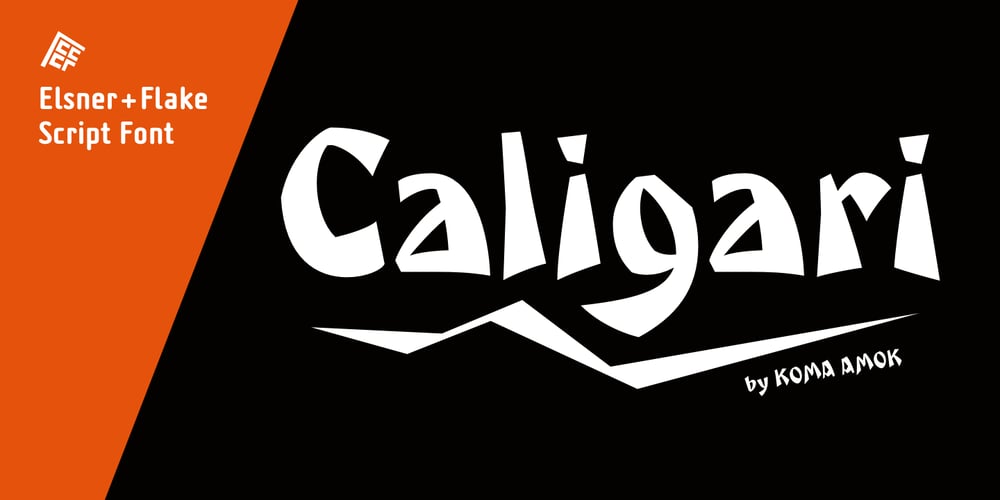
Caligari Pro Font Family was designed by Gerd Sebastian Jakob, Joerg Ewald Meißner and published by Elsner+Flake. Caligari Pro contains 1 styles and family package options. The silent film »The Cabinet of Dr. Caligari« (1920) is undoubtedly one of the breathtaking milestones within the German Expressionist Movement, a time of extraordinarily creative works of art as a reaction to a world in rapid change. The original intertitles of Caligari were worked out by the set designers (and painters) Walter Reimann, Walter Röhrig, and Hermann Warm, using a unique expressionistic language of form for dramatic and iconic lettering. When in 2010 KOMA AMOK’s Joerg Ewald Meißner and Gerd Sebastian Jakob were commissioned by the Institut Mathildenhöhe Darmstadt and publisher Hatje Cantz to design the catalog for the exhibition »The Total Artwork in Expressionism«—showing works of art, architecture, film, literature, theater, and dance—it was soon perfectly clear that a new typeface, inspired by the Caligari intertitles, should speak for all the expressionistic arts. An intense process of research and analysis began. The original letters of the Caligari intertitles were individuals on their own. Furthermore, each of the three title designers had added his specific approach to the basic Caligari type style. From hundreds of different As to Zs a choice had to be made, which should be THE characteristic Caligari letter for a digital typesetting font. Finally the chosen letters were cut and drawn again, missing letters were added according to the formal priniciples, all-in-all 1000 glyphs were digitised to complete a usefull OpenType font ready for use. When in the autumn of 2010 the exhibition started successfully with great media interest, the posters all over Darmstadt announced »You must become Caligari!« – set in the brandnew typeface. The font Caligari Pro offers alternative forms for every letter and a whole bunch of ligatures, thus creating an expressive, individual image of headlines and text. By using included Stylistic Alternates the image will get even more vivid. Caligari comes with a complete set of expressionist ornaments and true old style figures—thus the heyday of the Expressionist Movement and the era of the silent films can be revived typographically by the means of today: »Express Yourself!«.